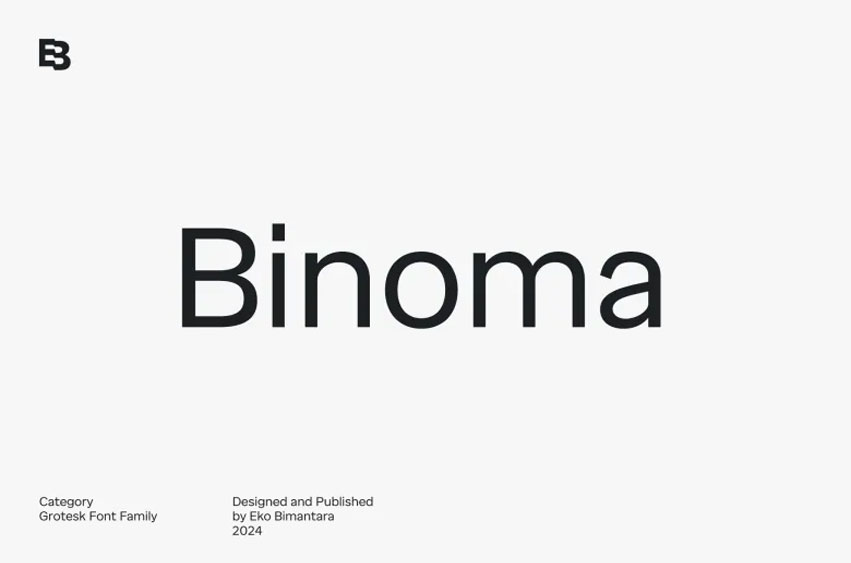
Binoma Font
Binoma Font designed by Eko Bimantara at the turn of 2024, is an impressive Grotesk sans serif font family that stands out for its sans-serif look that exudes contemporaryity and adaptability. Even though its background may be neutral, Binoma boasts its own subtle style which adds character to any style it is featured in; making Binoma suitable for display settings, headers, as well as various layouts.
Binoma font’s versatility extends to logos, websites, brand identities packaging for products logos as well as text – making it the ideal source for web fonts and general graphic design projects. Binoma stands out from its competition effortlessly becoming part of creative projects while maintaining modernity while remaining flexible – perfect for use across media!
Binoma is an ideal font choice for designers seeking a font that elegantly bridges neutrality with distinct style, between humanist and industrial influences. From striking displays to intricate layouts, its versatility is easily apparent and it makes Binoma an excellent companion for various innovative applications.